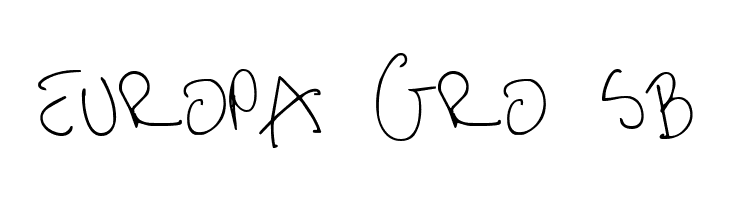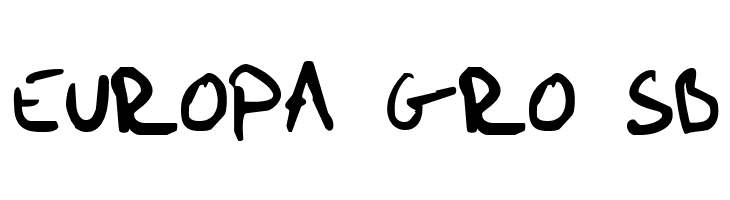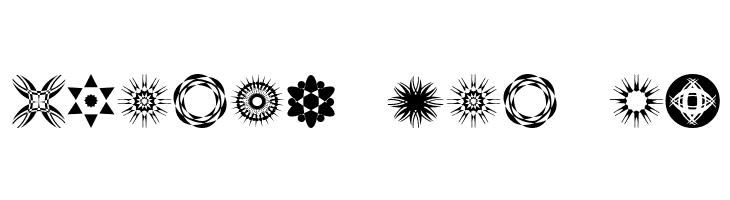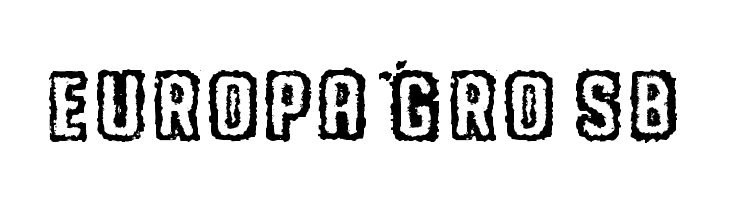
A quirky, hand-drawn dingbat font with abstract illustrations.
A modern, geometric font with bold, interconnected letterforms and a futuristic style.
A bold, textured font with a distressed, hand-drawn appearance.
A bold, playful handwritten font with rounded, marker-like strokes.
A thin, casual handwritten font with a personal and approachable style.
A playful, handwritten font with a casual and dynamic style.
A playful, handwritten font with bold, rounded strokes and a casual style.
Ornamental geometric dingbat font with intricate, symmetrical designs.